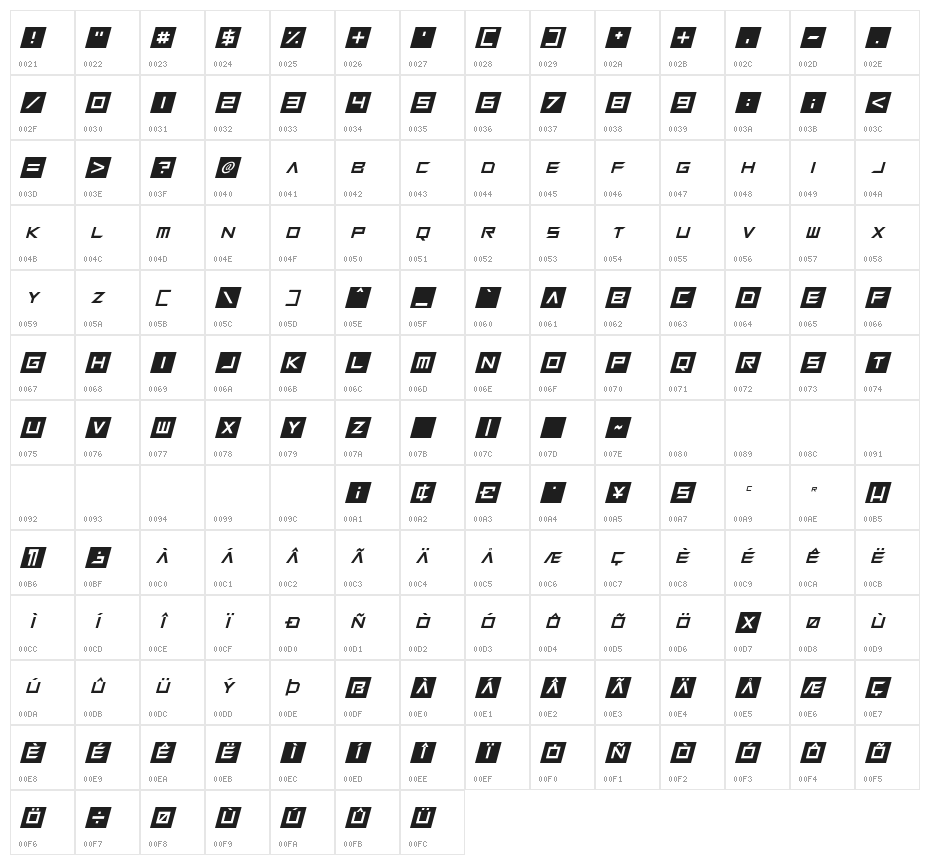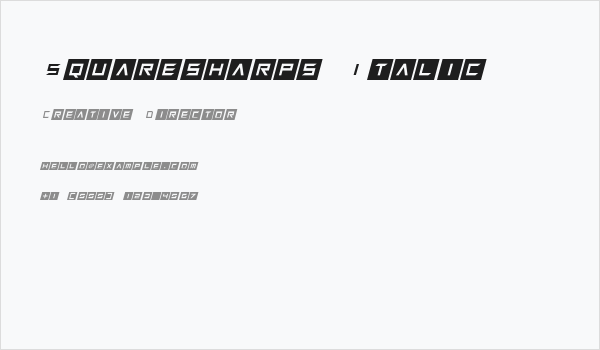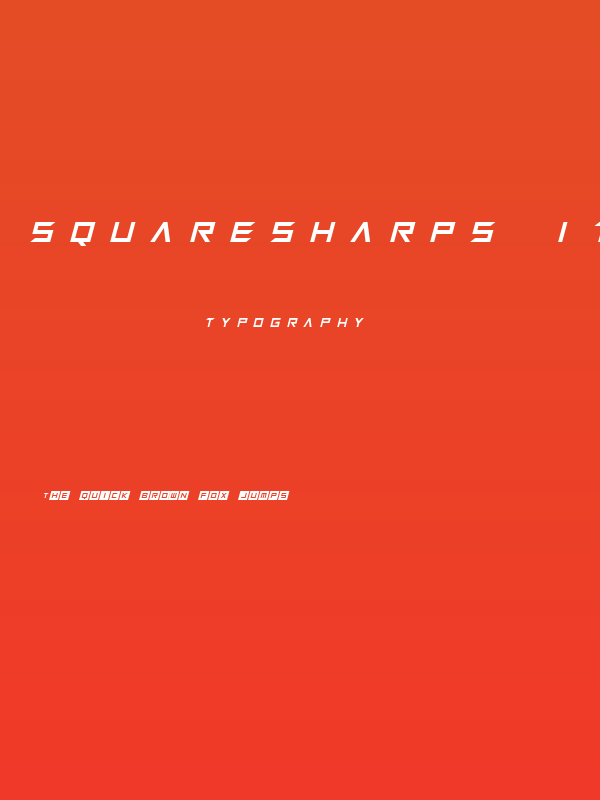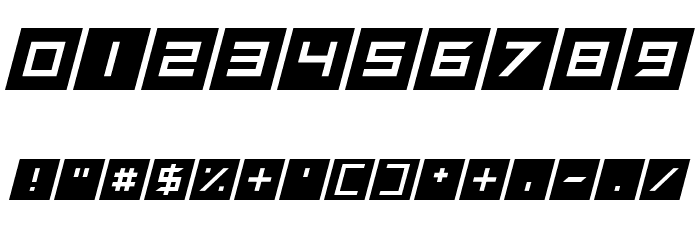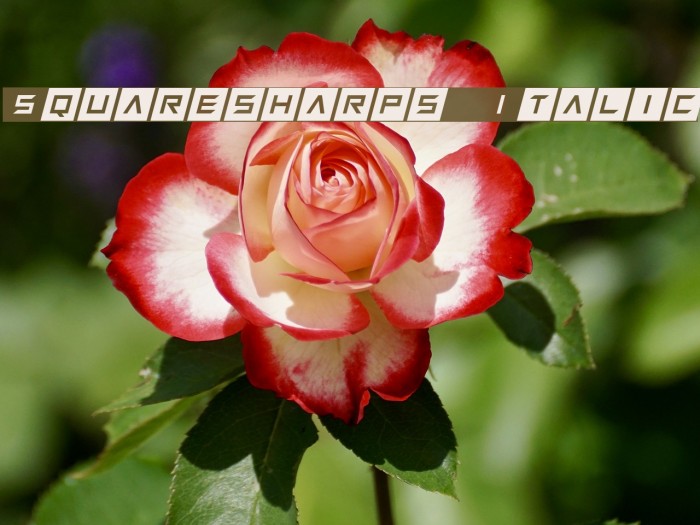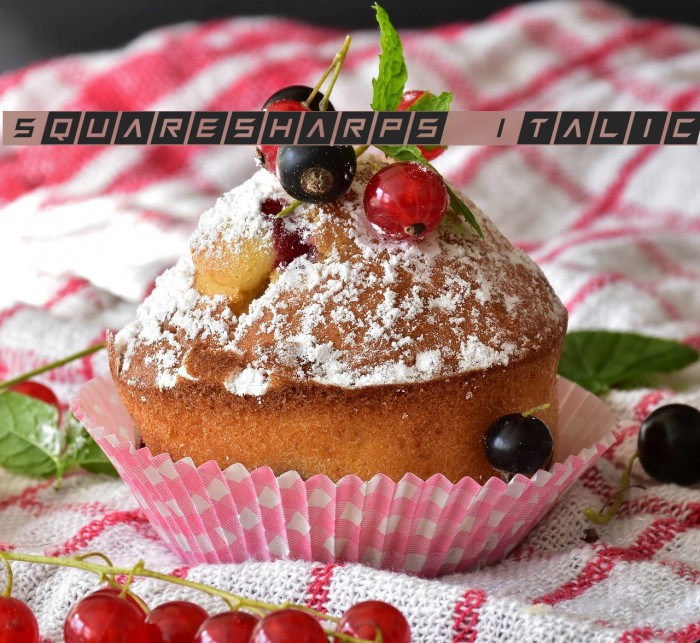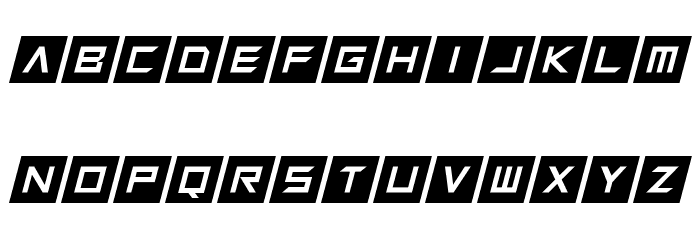
Squaresharps Italic Font
Squaresharps Italic Description
This font features a modern, angular design with sharp edges and a distinct italic slant. The uppercase letters are bold and dynamic, with a futuristic aesthetic that is emphasized by the slanted orientation. The lowercase letters maintain the same angular style, creating a cohesive look across all characters. The numbers are equally bold and angular, providing a strong visual impact. Special characters follow the same design principles, ensuring consistency throughout. This font's unique style makes it suitable for projects that require a modern and edgy appearance.
| Proposed Projects | Ideal for sci-fi themed designs, video game graphics, tech branding, and modern posters. |